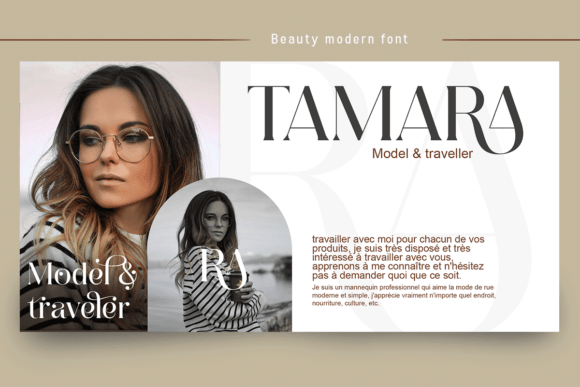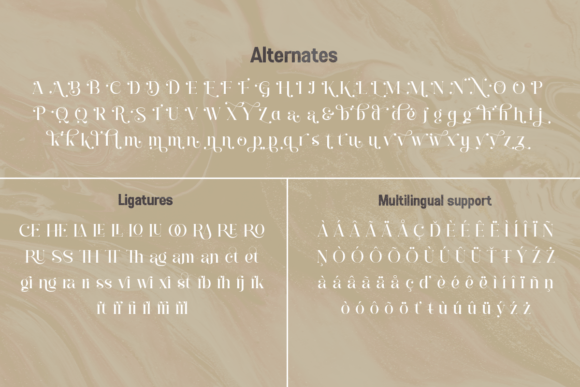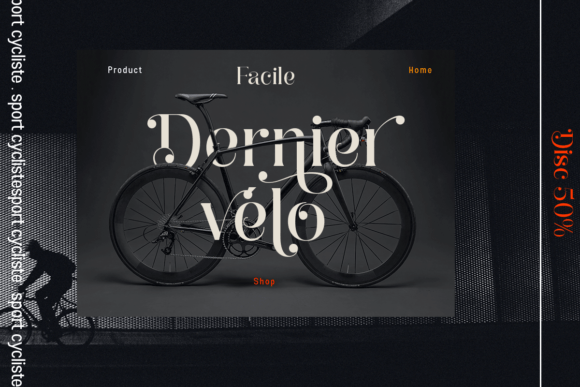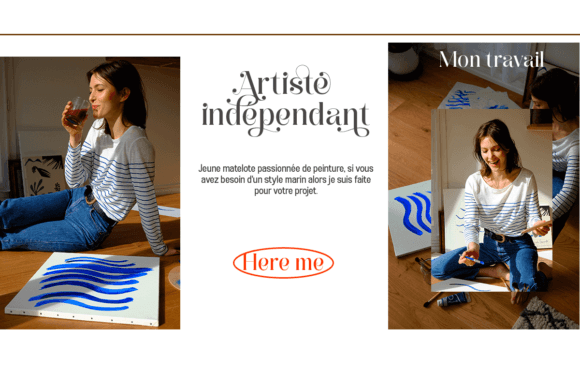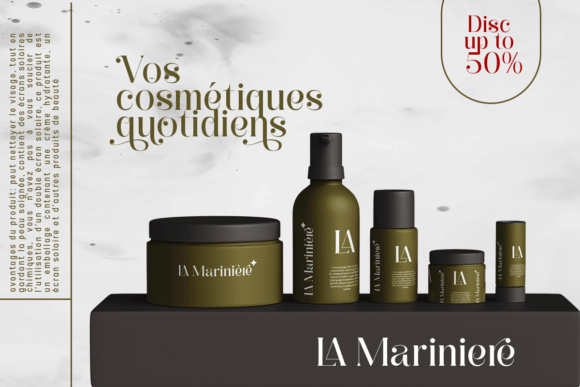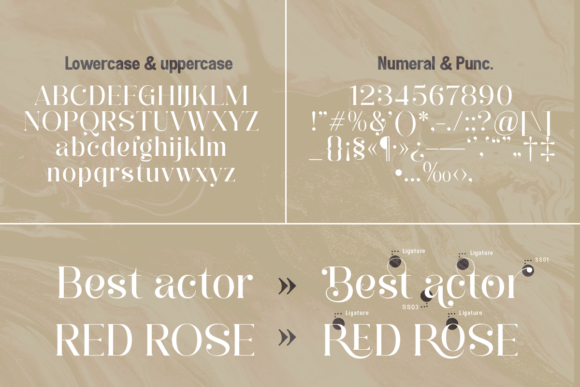
Introduction to Sejen Font
Sejen is a beautiful and elegant font perfect for branding, logos, invitation cards, and more.
Add it to any of your projects, and it will give them a spark of luxury This font is PUA encoded, which means you can access all of the glyphs and swashes with ease.
Sejen Font offers exceptional quality and versatility, making it a valuable addition to your design toolkit. Whether you’re creating for personal projects or commercial use, Sejen Font delivers professional results.